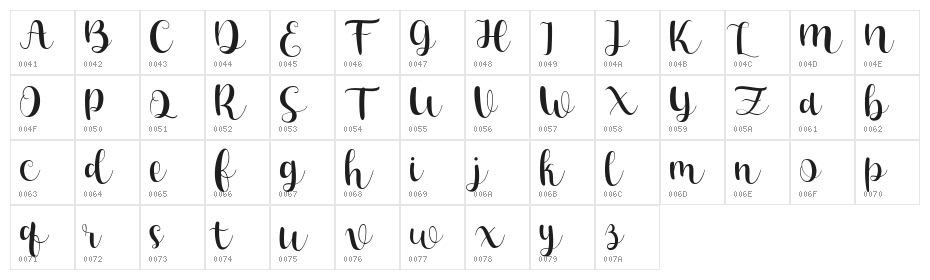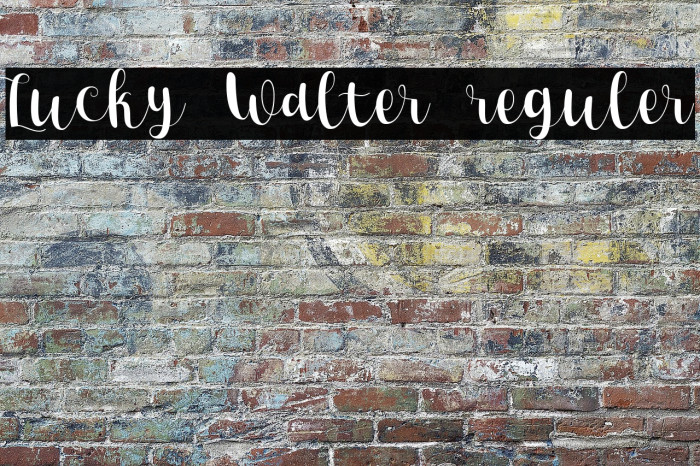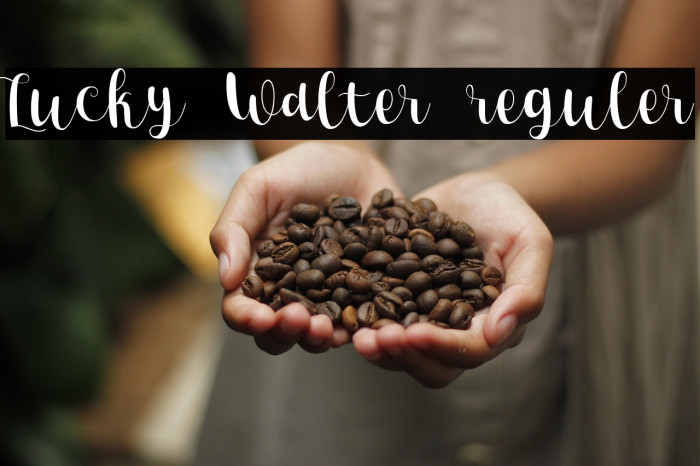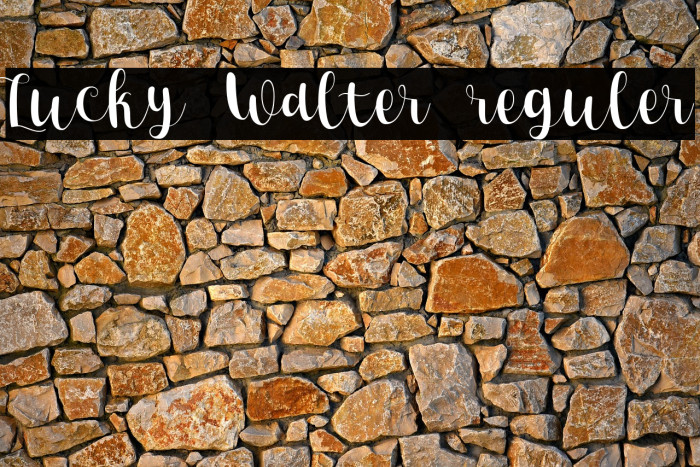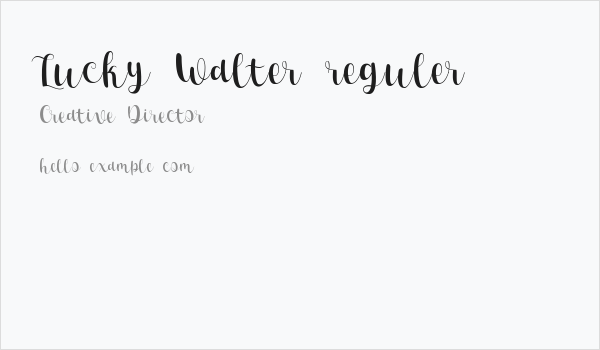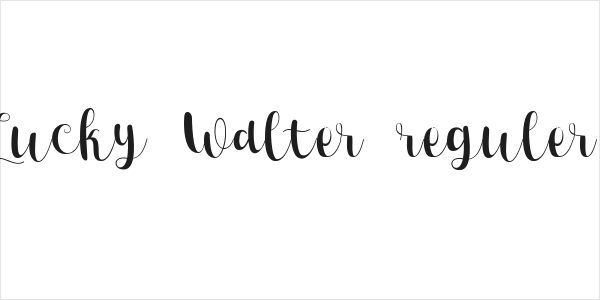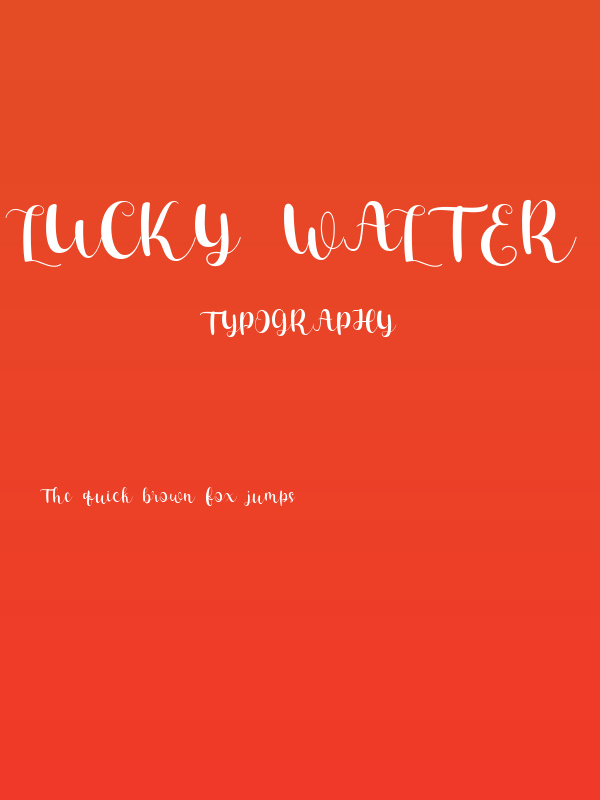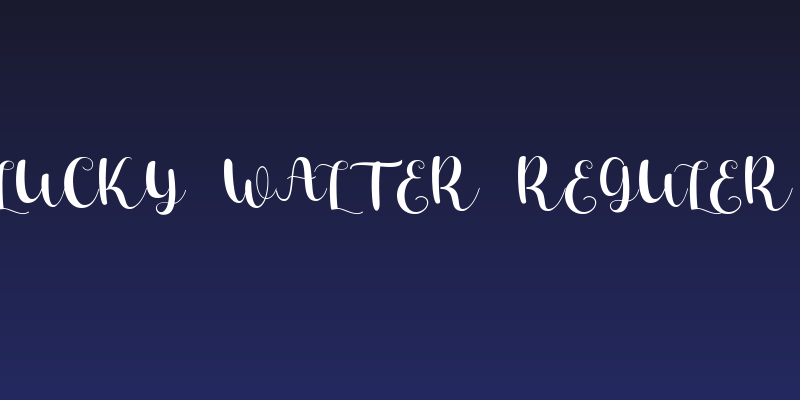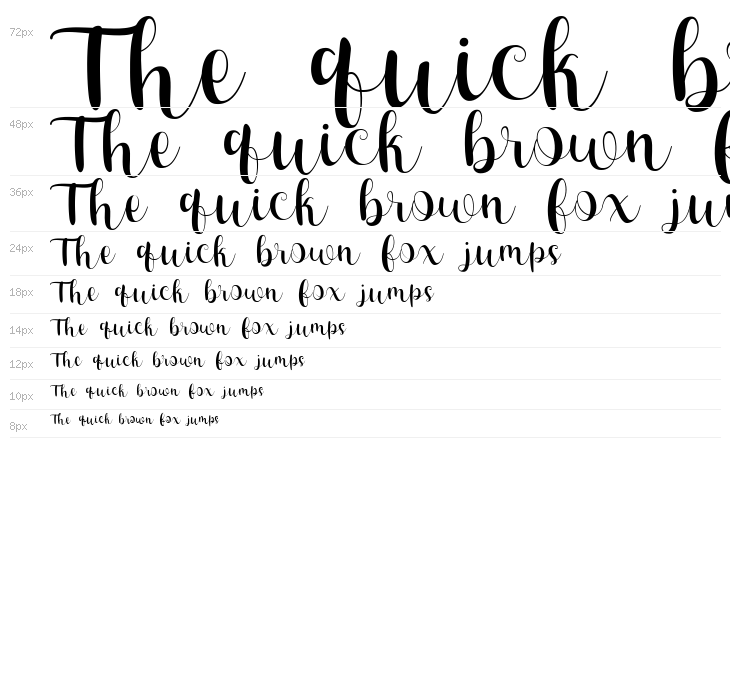
Lucky Walter reguler Font
Lucky Walter reguler Description
This font features an elegant and flowing script style, characterized by its smooth, cursive letterforms that exude a sense of grace and sophistication. The uppercase letters are bold and prominent, with sweeping curves and flourishes that add a decorative touch. The lowercase letters maintain a consistent flow, with gentle loops and connections that enhance readability while preserving the artistic flair. The overall design is reminiscent of traditional calligraphy, making it suitable for projects that require a touch of elegance and class. The font's balanced contrast between thick and thin strokes adds to its visual appeal, making it ideal for formal invitations, branding, and other creative applications.
| Overall Style | Elegant, Decorative |
| Use Case | Headlines, Invitations, Logos |
| Proposed Projects | Ideal for wedding invitations, branding, greeting cards, and elegant packaging designs. |